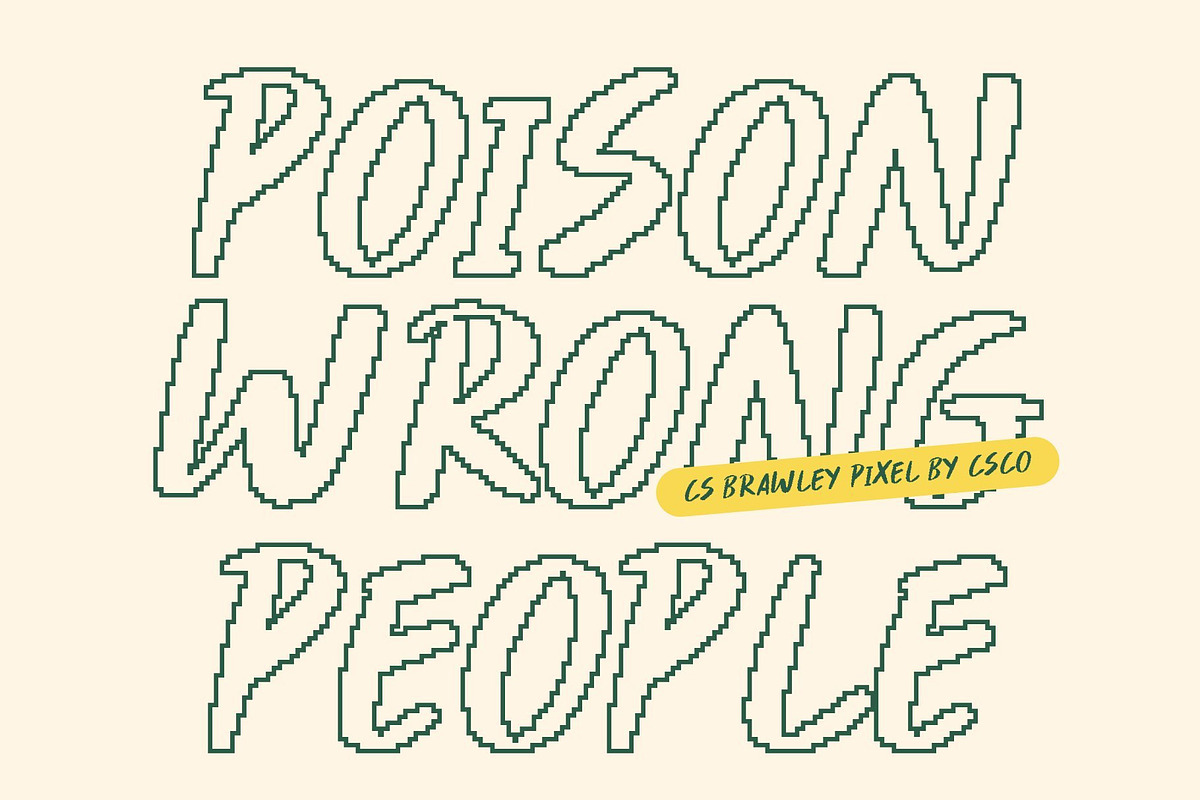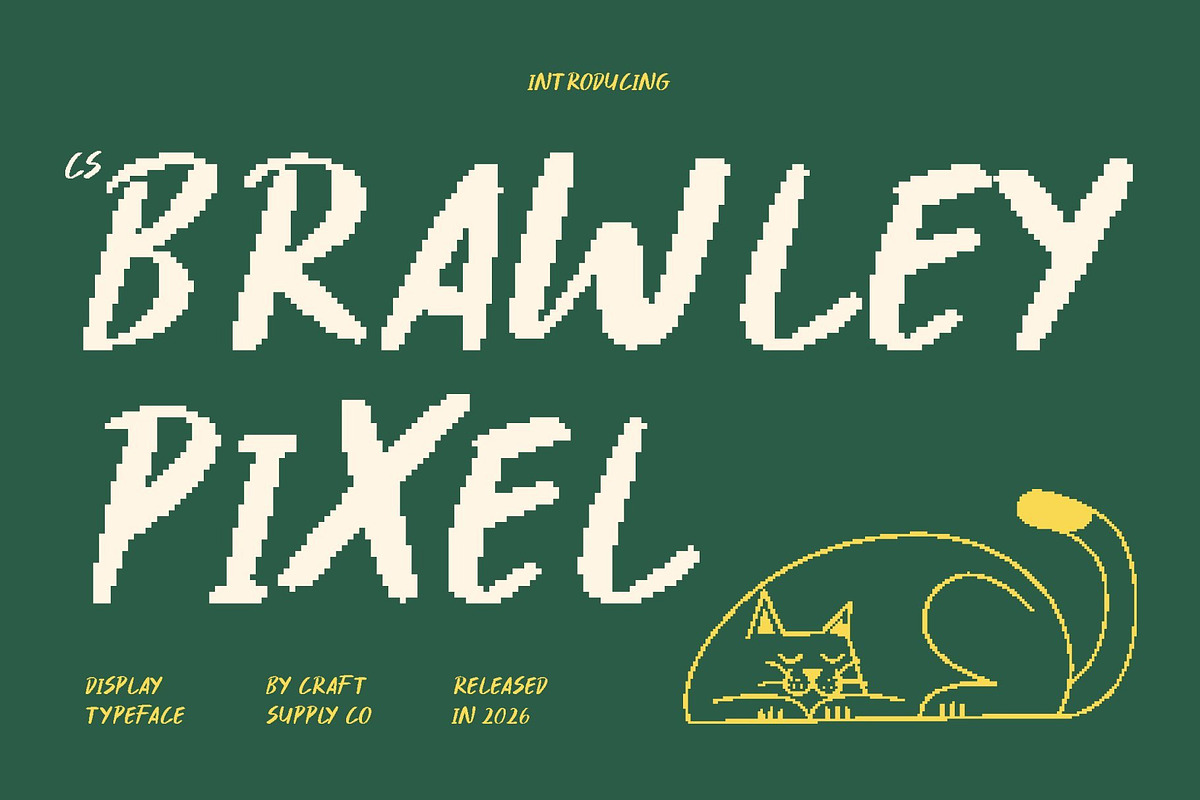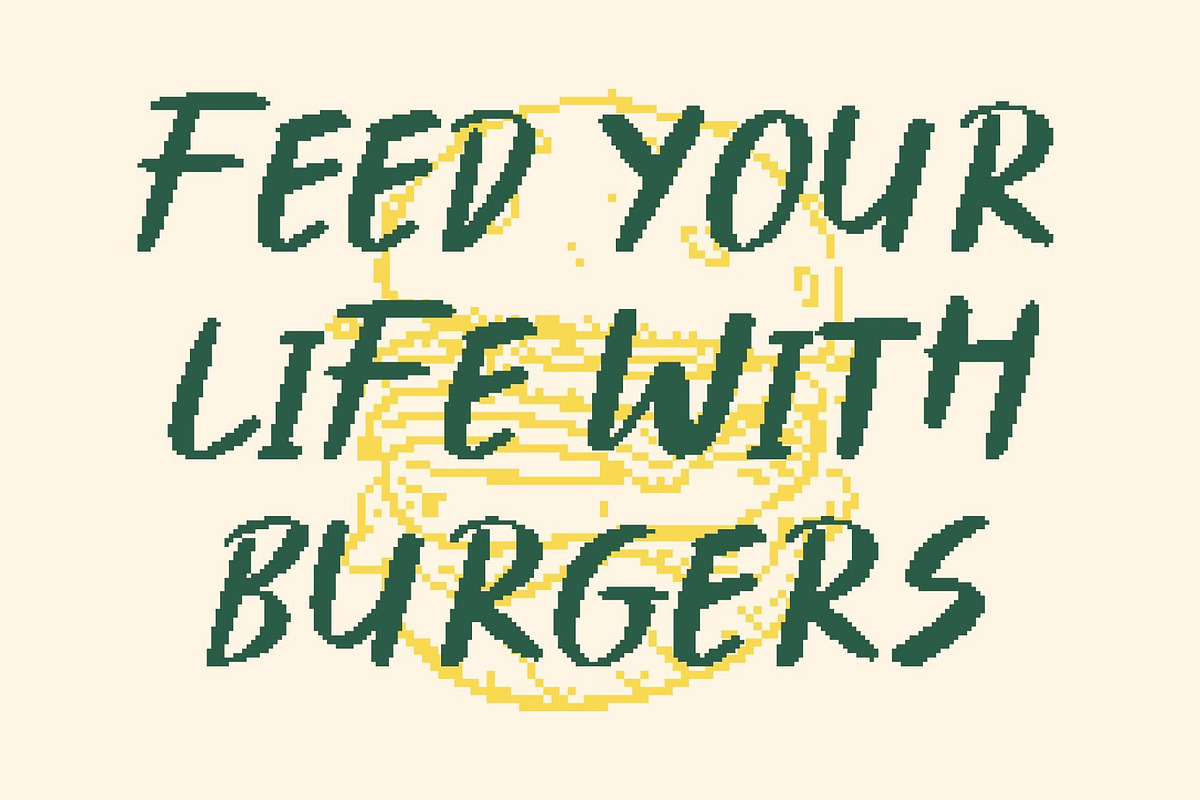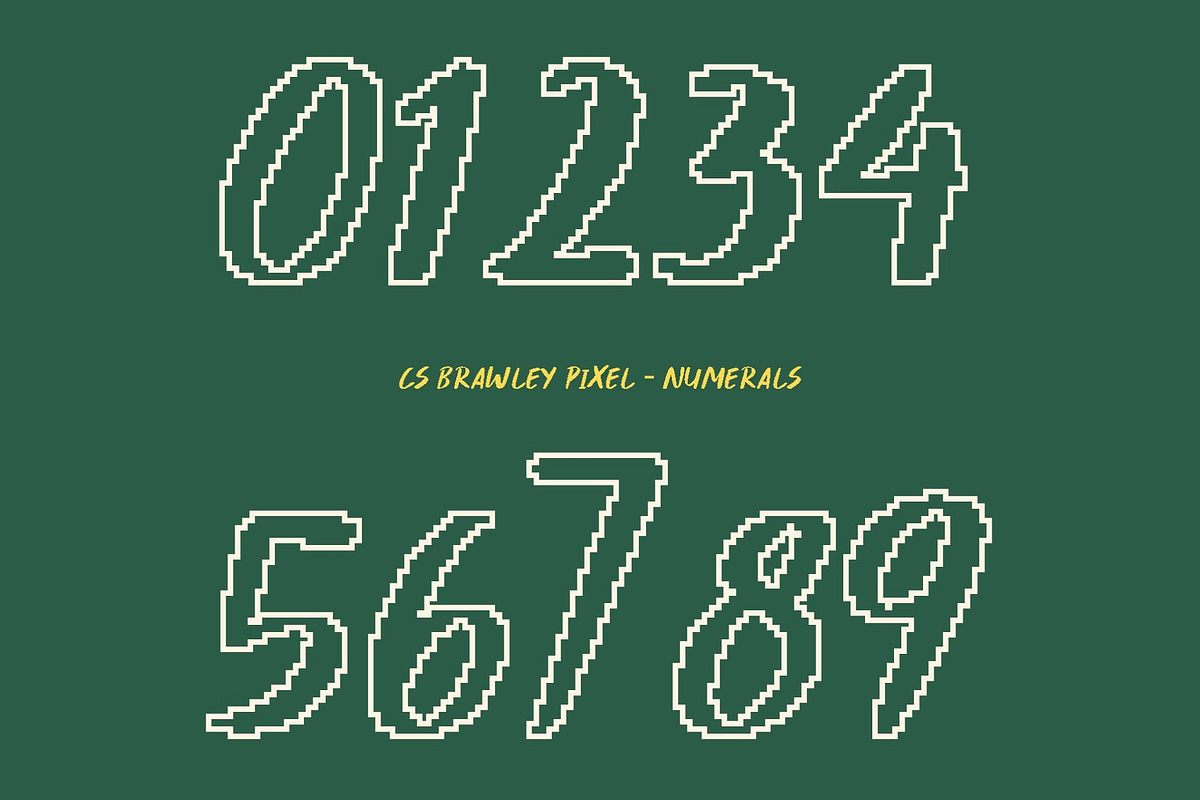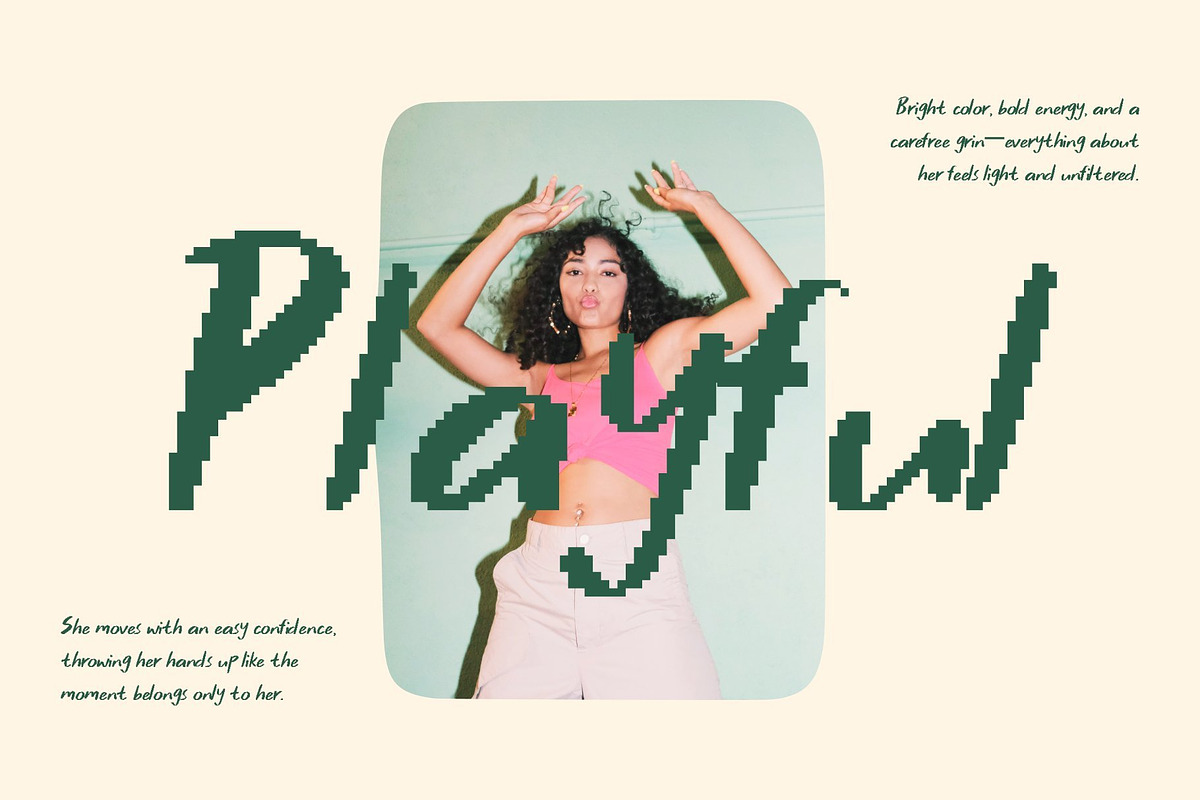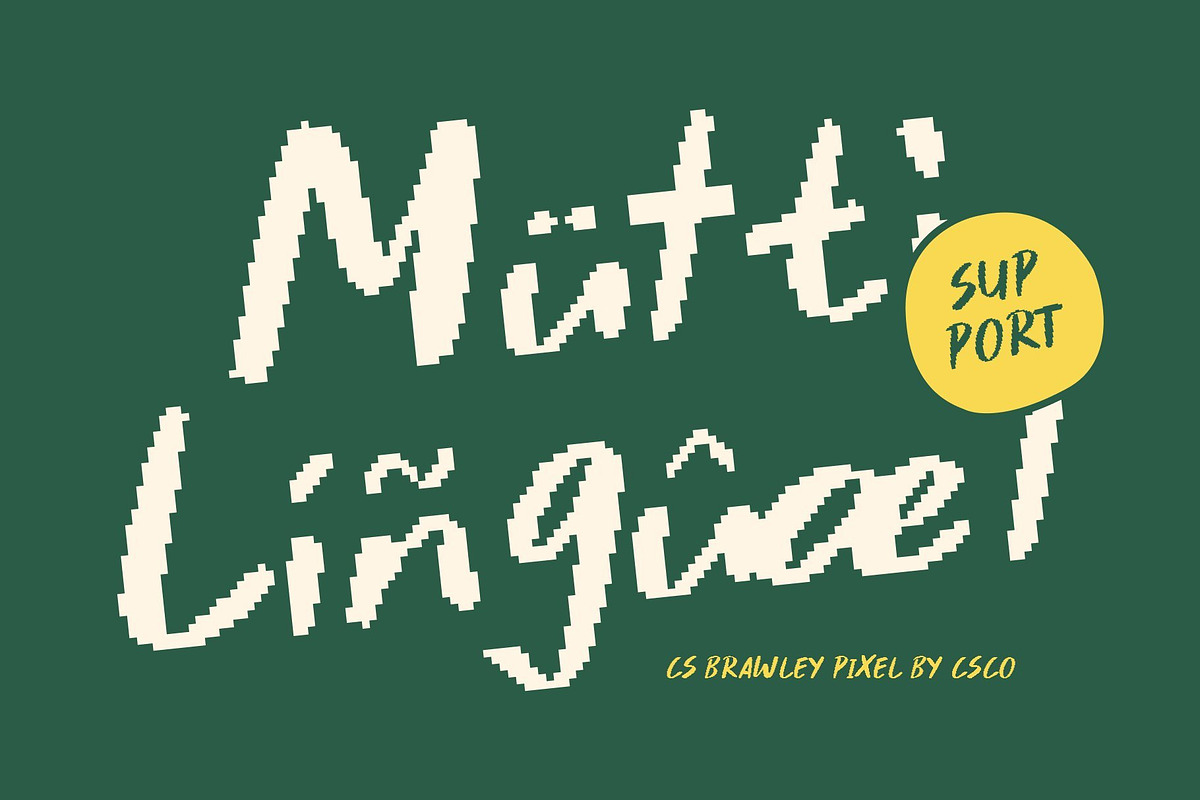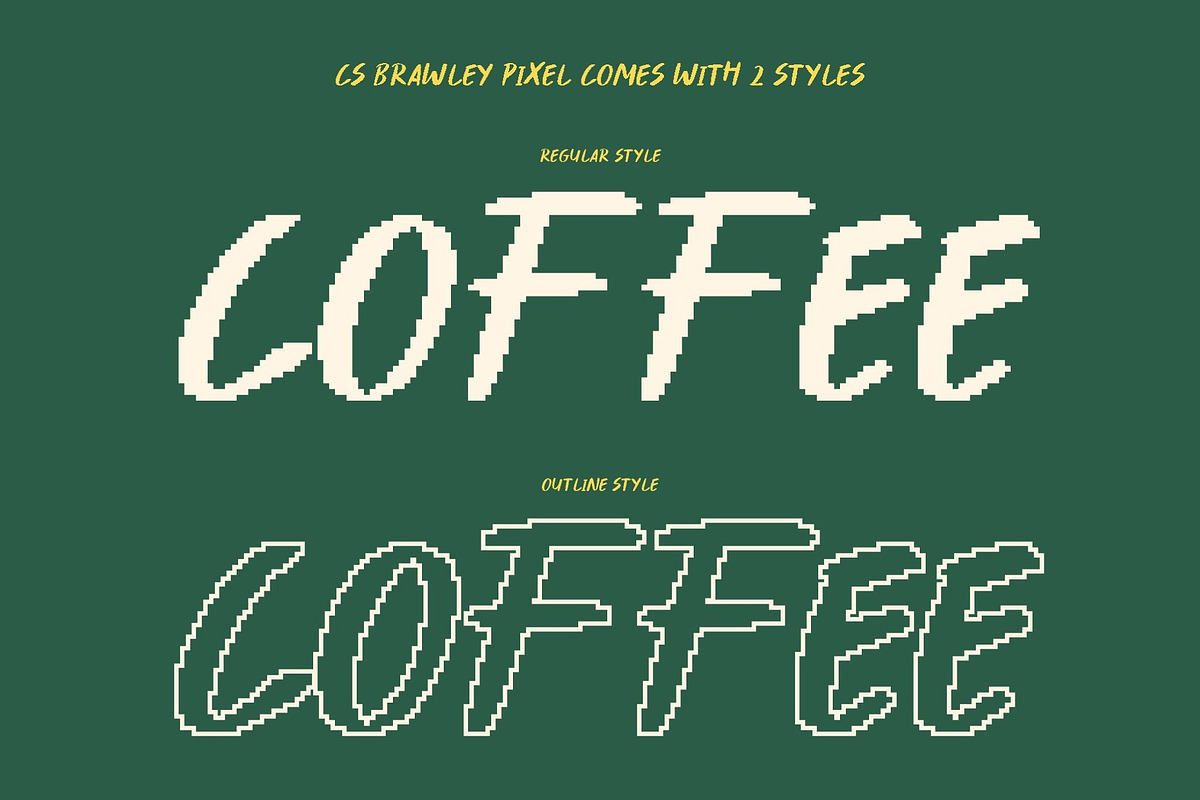
CS Brawley Pixel
CS Brawley Pixel – Bold Expression with a Handcrafted Digital Touch
Pixel Marker Style with Natural Sans Serif Structure This is a marker-inspired sans serif font transformed into a bold pixel style, blending handcrafted expression with digital precision. Its blocky pixel construction echoes old computer graphics and early digital screens, while still retaining the casual energy of handwritten marker strokes. The result is a font that feels expressive, bold, and unmistakably retro-digital.
Pixel Texture for Authentic Retro Personality Each letter is built from visible pixel units that mimic the rough, imperfect texture of hand-drawn marks translated into an 8-bit aesthetic. This pixel texture brings a sense of authenticity and character, recalling vintage terminals, early video games, and old digital displays. It adds visual depth and personality while keeping the text clear and readable.
Modern Simplicity Meets Retro Digital Warmth Despite its nostalgic pixel look, this font maintains a clean sans serif structure that feels modern and balanced. The combination of simple geometry and pixelated edges creates a unique harmony between old-school technology and contemporary design.
Perfect for Digital, Retro, and Creative Projects This is ideal for digital designs, retro-themed visuals, game graphics, posters, branding, and creative content that needs a bold pixel identity. Its handcrafted pixel style brings energy and warmth to screens and print alike, making it perfect for projects inspired by old technology, digital nostalgia, and expressive modern creativity.
- CS Brawley Pixel Regular
- CS Brawley Pixel Outline